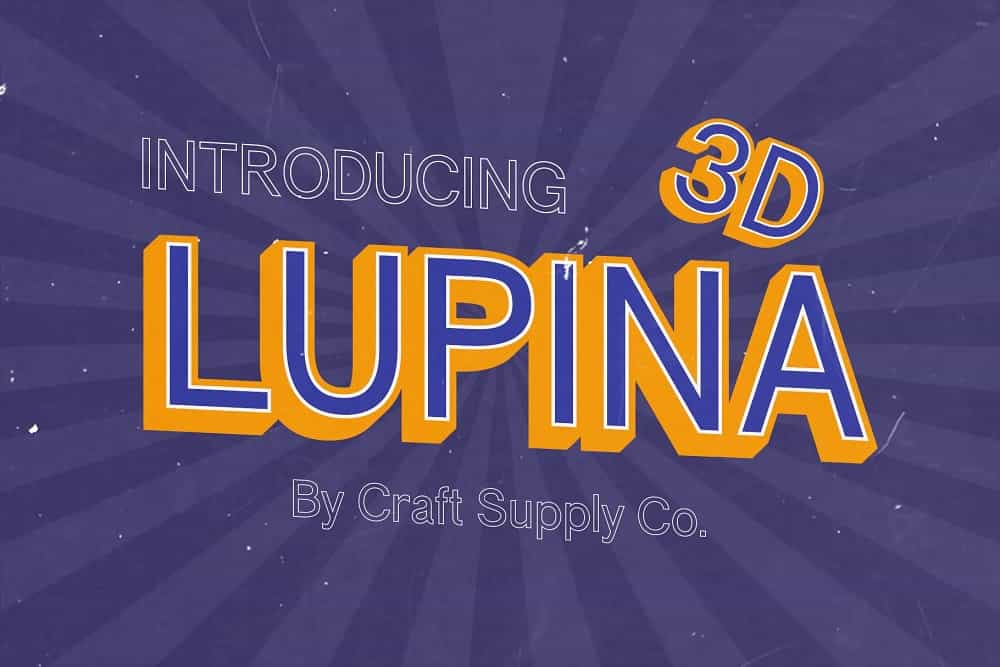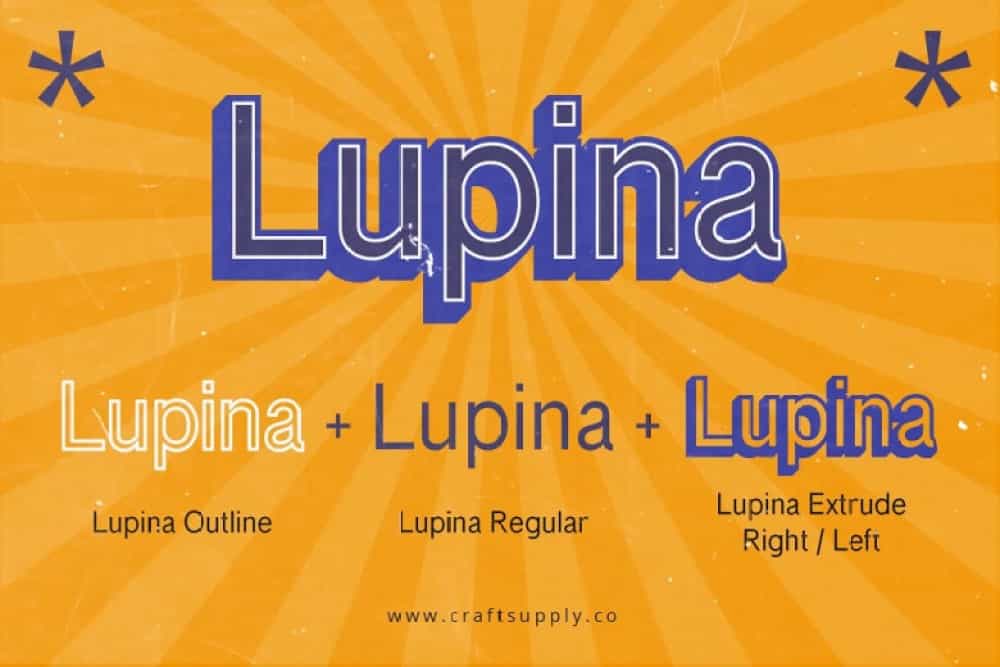
The Lupina 3D is a sans serif font, and what makes this font beautiful 3D look as if the letters are popping out of the plane. Lupina 3D uses an extrude effect, which makes 2D letters to become 3D letters that seem to come out of the page in the most graceful manner.